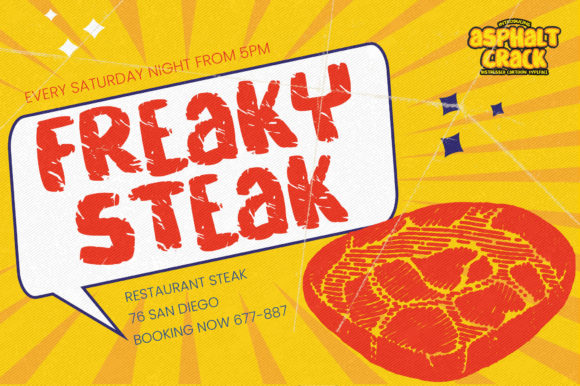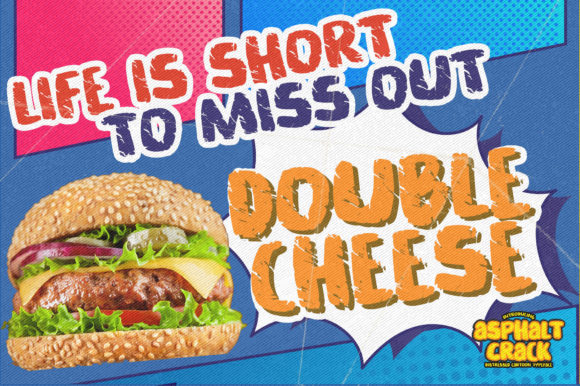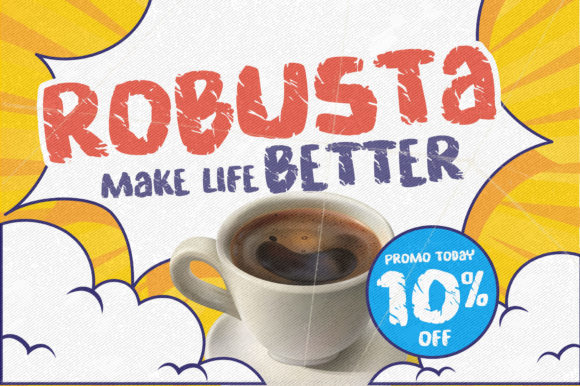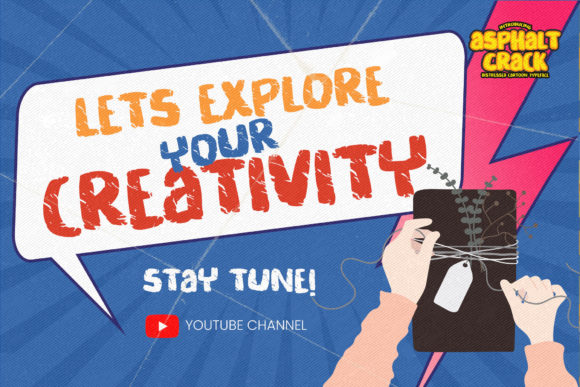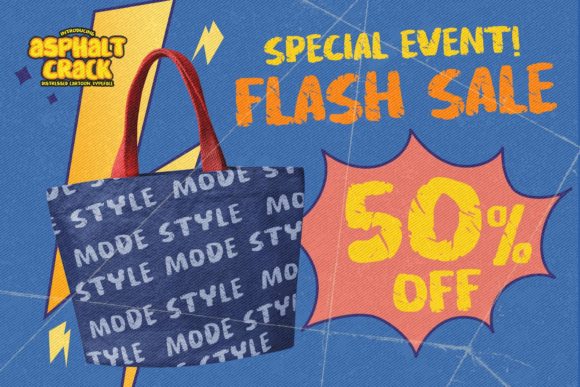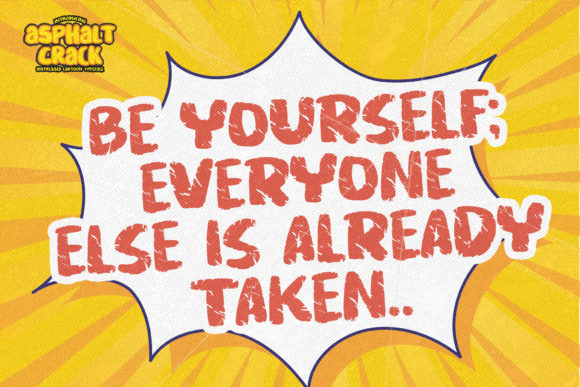
Introducing Asphalt Crack Font: The Ultimate Distressed Cartoon Display Font
Are you tired of using the same old fonts in your designs? Do you want to add a touch of modernity and professionalism to your work? Look no further than Asphalt Crack Font, a distressed cartoon display font that is inspired by modern logos and brands with strong characteristics. In this article, we’ll take a closer look at Asphalt Crack Font, its features, and how it can elevate your designs.
What is Asphalt Crack Font?
Asphalt Crack Font is a unique and versatile font that is perfect for designers and crafters looking to add a sweet touch to their work. It’s a distressed cartoon display font that is inspired by modern logos and brands with strong characteristics. The font has a rugged, edgy feel that’s perfect for creating bold and eye-catching designs.
Key Features of Asphalt Crack Font
Asphalt Crack Font has several key features that make it stand out from other fonts. Some of its notable features include:
• Distressed texture: The font has a distressed texture that gives it a rugged, worn look that’s perfect for creating bold and eye-catching designs.
• Cartoon-inspired: The font has a cartoon-inspired feel that’s perfect for creating playful and fun designs.
• Strong characteristics: The font is inspired by modern logos and brands with strong characteristics, making it perfect for creating designs that need to make a statement.
• Versatile: The font is versatile and can be used for a wide range of design projects, including posters, children’s cards, packaging, branding, logotypes, and more.
Use Cases for Asphalt Crack Font
Asphalt Crack Font is a versatile font that can be used for a wide range of design projects. Here are some use cases where the font can be used:
• Posters: The font is perfect for creating bold and eye-catching posters that need to grab the attention of your audience.
• Children’s cards: The font’s playful and fun feel makes it perfect for creating children’s cards that are both fun and engaging.
• Packaging: The font can be used to create bold and eye-catching packaging that stands out on store shelves.
• Branding: The font can be used to create strong and memorable brand identities that make a statement.
• Logotypes: The font can be used to create unique and memorable logotypes that represent your brand.
• Websites: The font can be used to create bold and eye-catching website headers and titles that grab the attention of your audience.
Benefits of Using Asphalt Crack Font
Using Asphalt Crack Font in your designs can have several benefits, including:
• Modern and professional look: The font can help give your designs a modern and professional look that’s perfect for businesses and brands.
• Increased visibility: The font’s bold and eye-catching design can help increase the visibility of your designs and grab the attention of your audience.
• Improved brand identity: The font can help create a strong and memorable brand identity that represents your business or brand.
• Versatility: The font can be used for a wide range of design projects, making it a versatile addition to your font library.
Asphalt Crack Font is a unique and versatile distressed cartoon display font that is perfect for designers and crafters looking to add a sweet touch to their work. With its rugged, edgy feel and strong characteristics, the font is perfect for creating bold and eye-catching designs that make a statement. Whether you’re creating posters, children’s cards, packaging, branding, logotypes, or websites, Asphalt Crack Font is a great choice. So why not give it a try and see how it can elevate your designs?